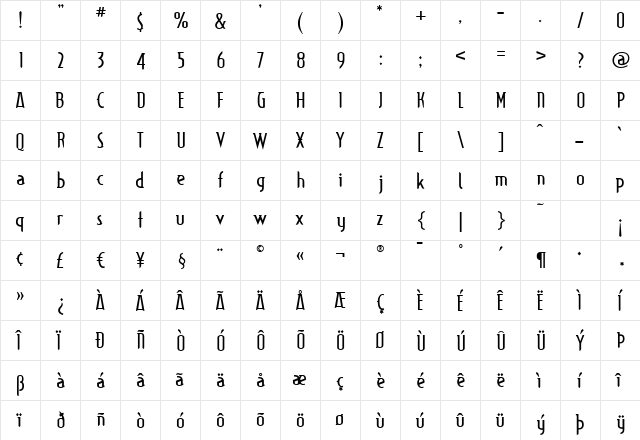
Typographiction1.0 R Regular
Design Context for Typographiction1.0 R Typeface
Typographiction1.0 R offers clean, dependable letterforms without strong stylistic allegiance, making it a practical choice for designers who need flexibility.